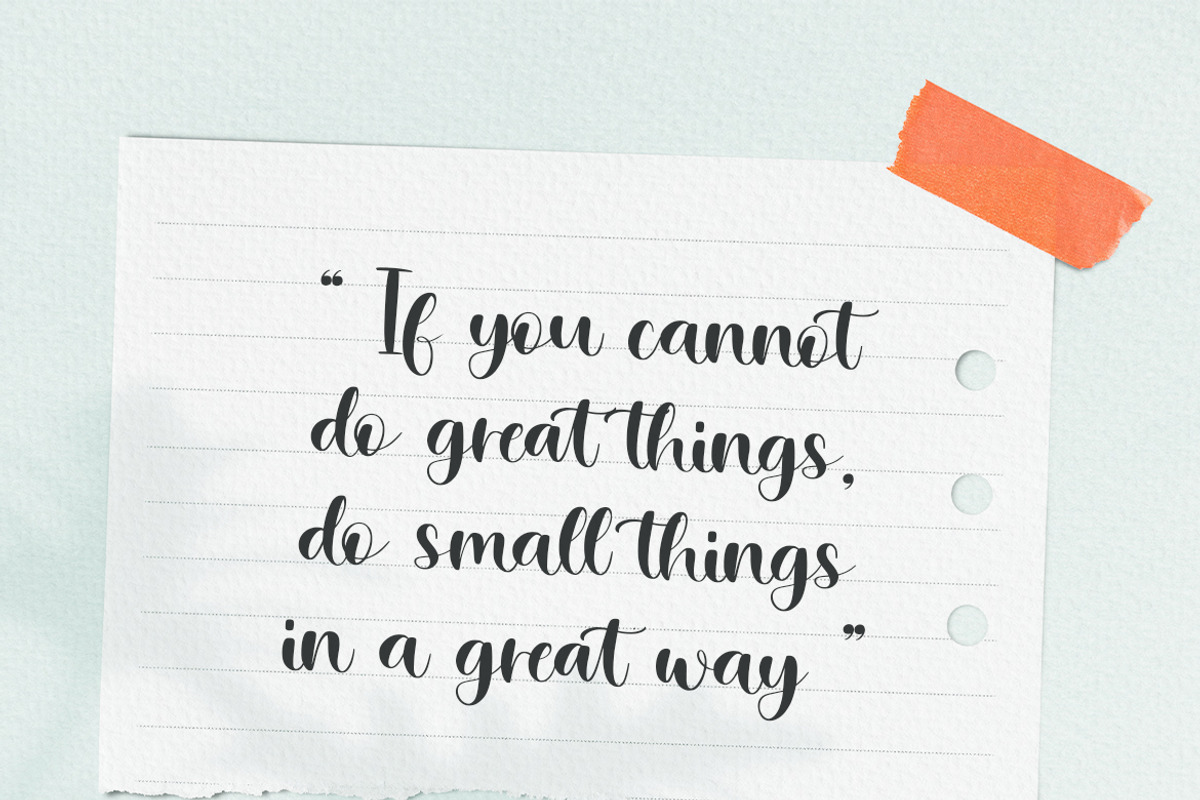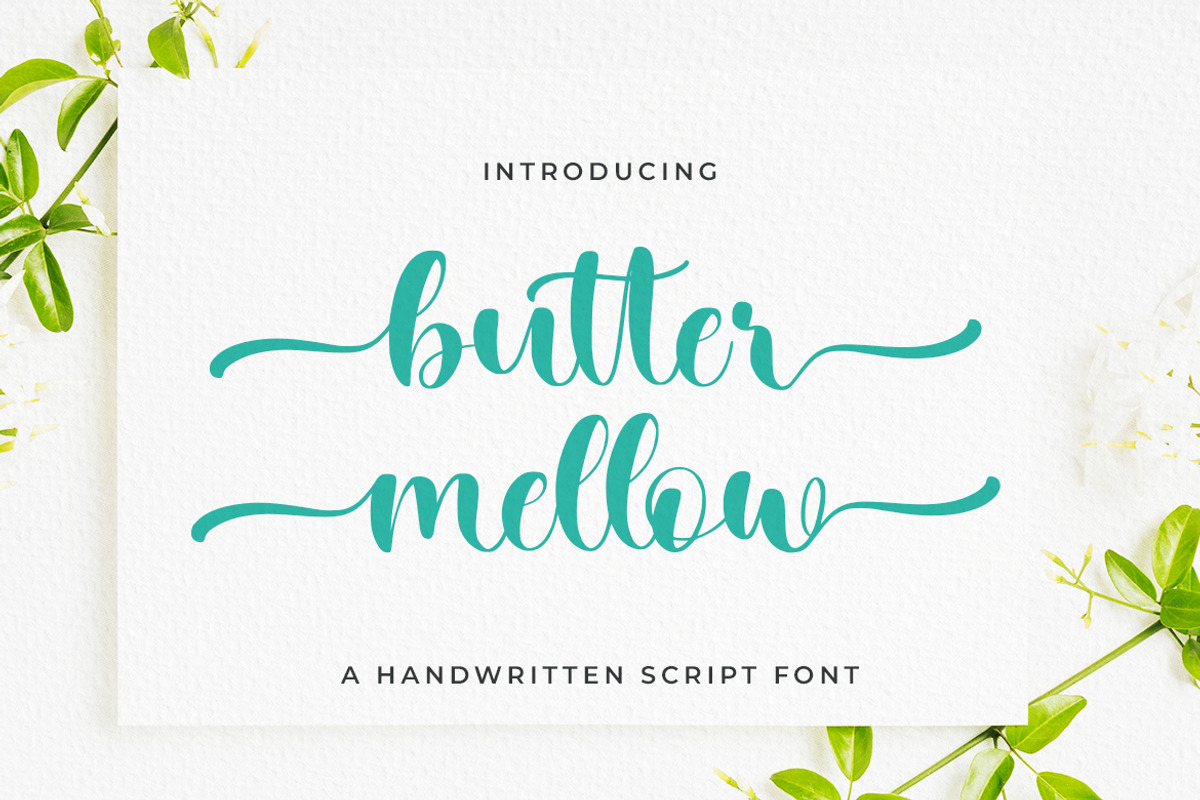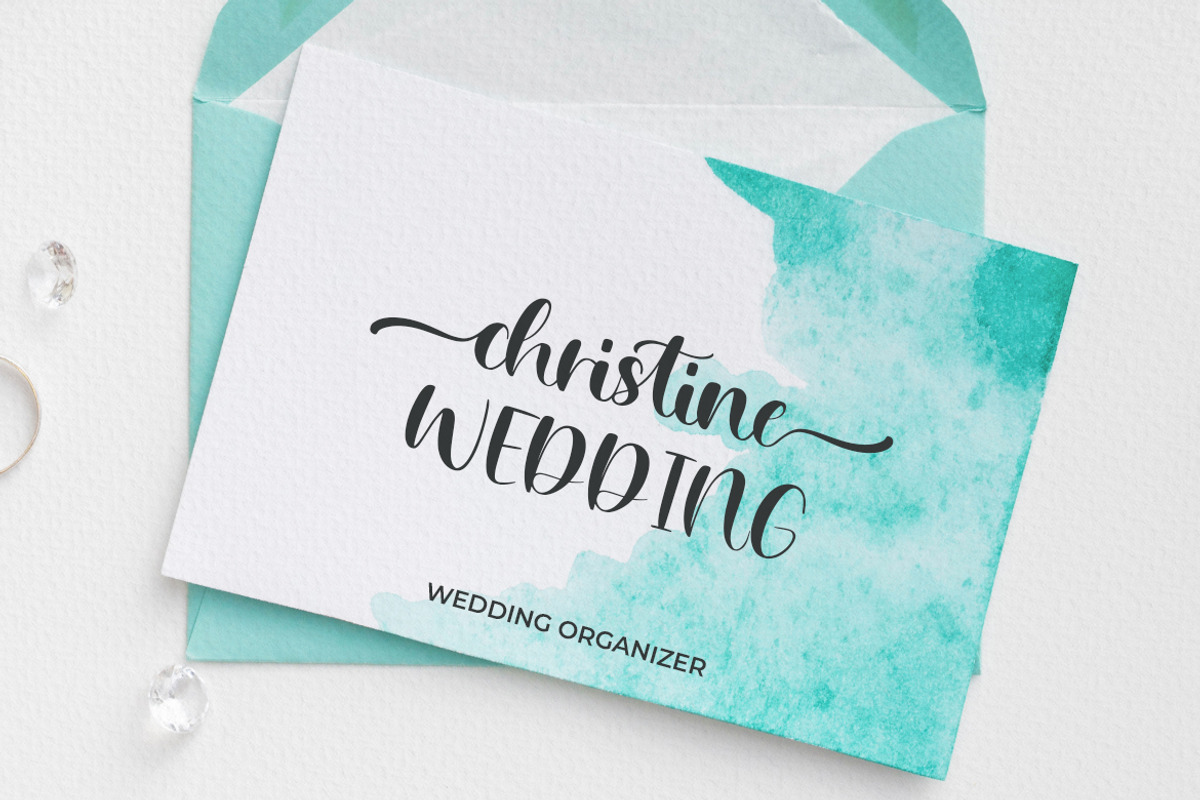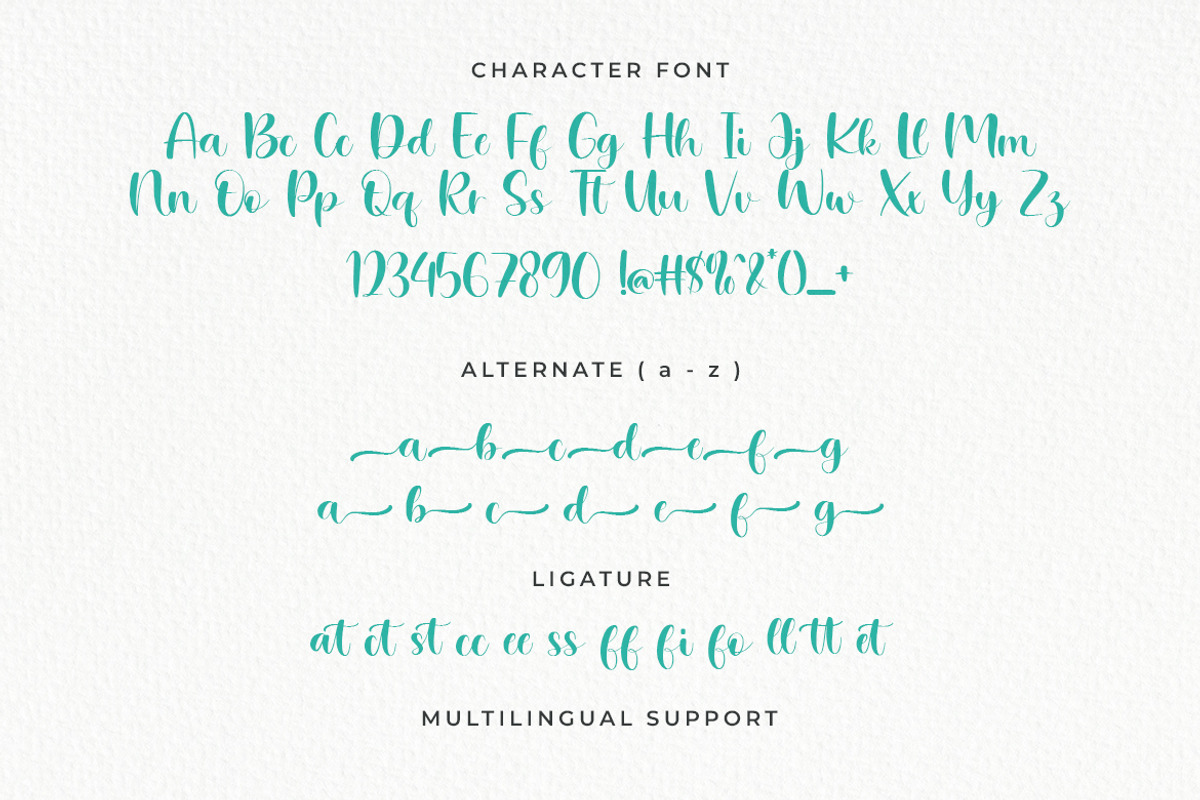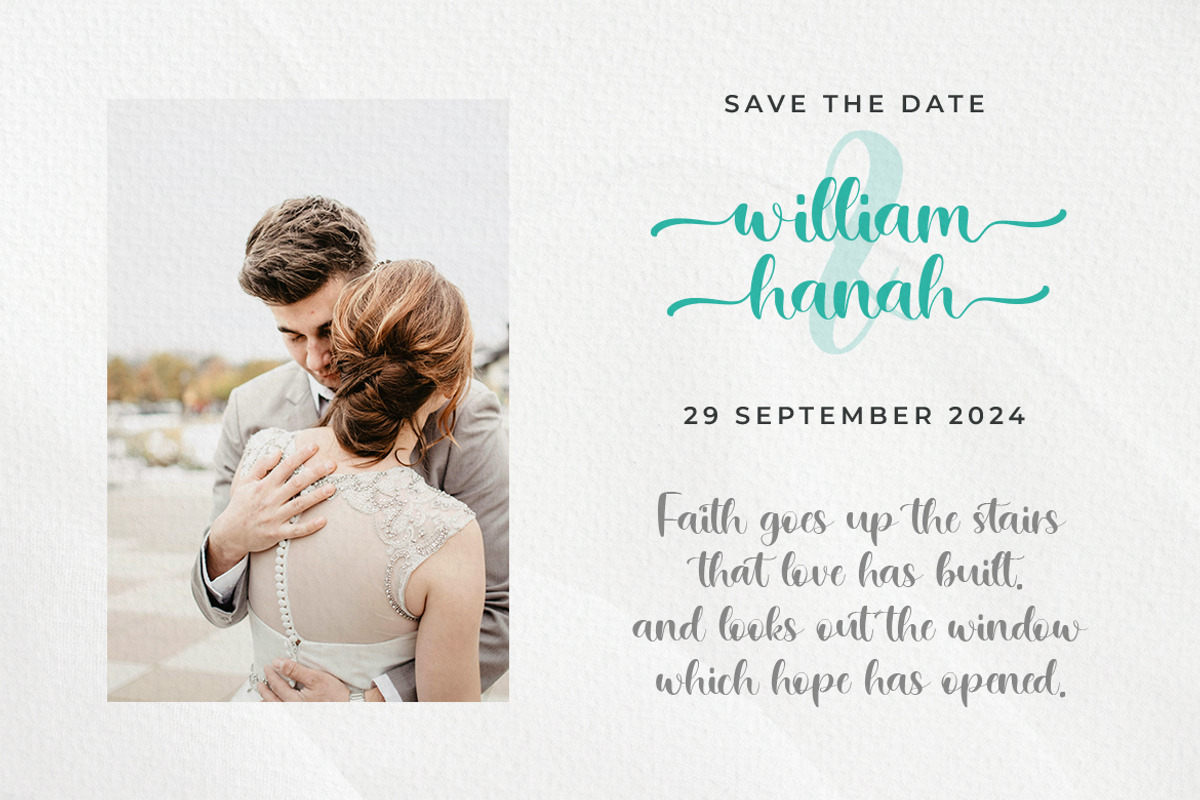
Butter Mellow Handwritten Script
Introducing our latest handwritten script font, Butter Mellow! Immerse your projects in a touch of elegance and personality with this beautifully crafted typeface butter mellow is perfect for invitations, branding, social media posts, and other designs that require an authentic, handwritten feel.
- Uppercase, Lowercase & Punctuation
- Alternate & Ligature